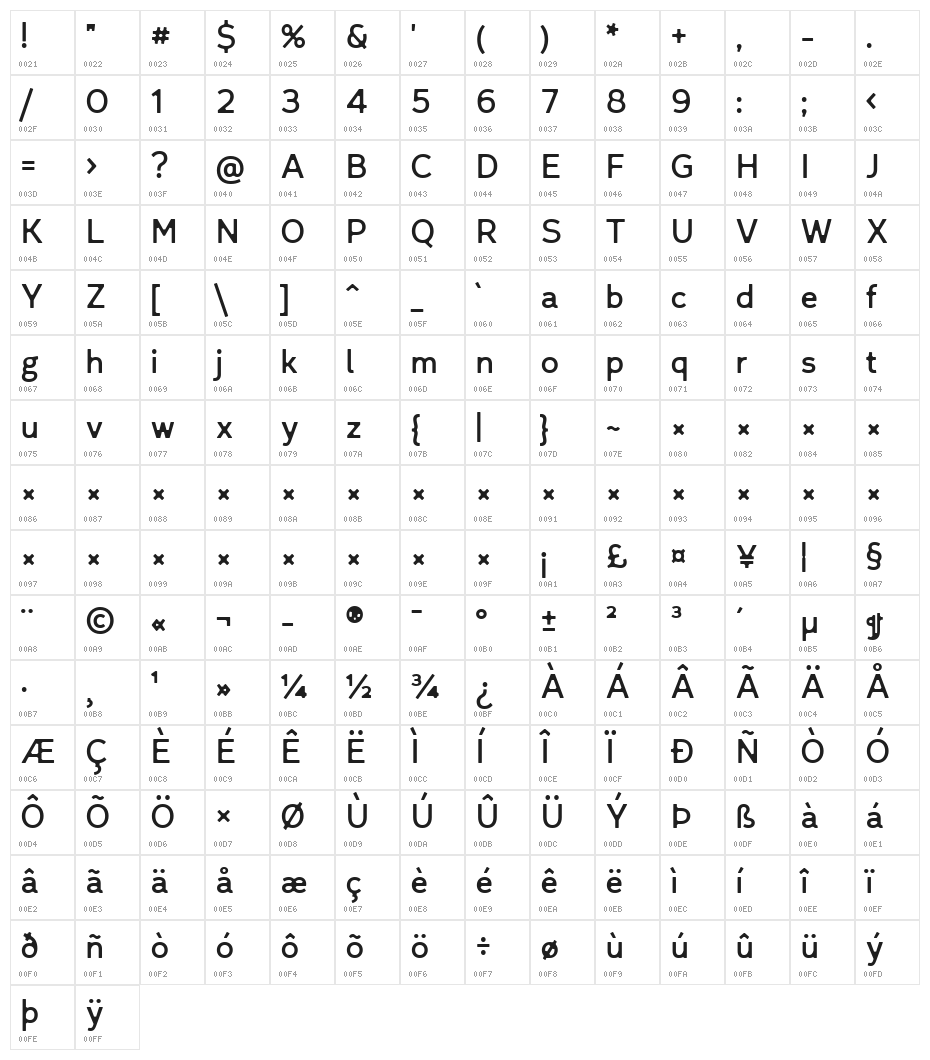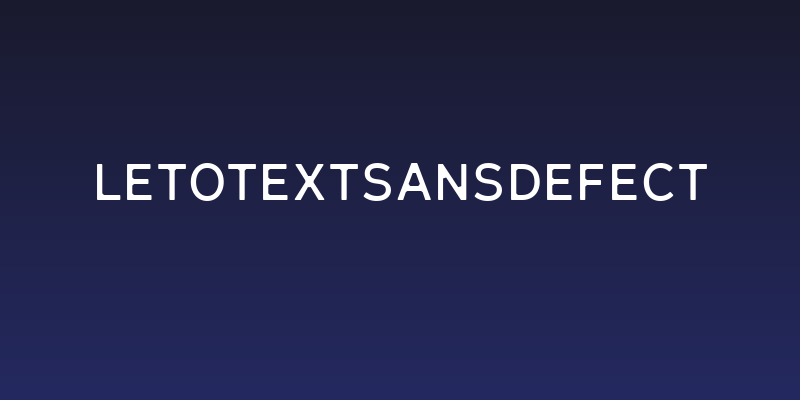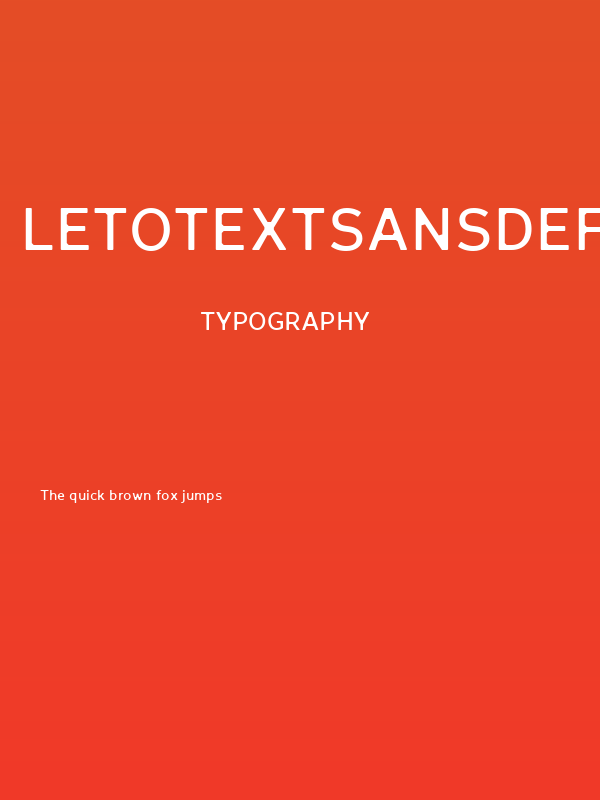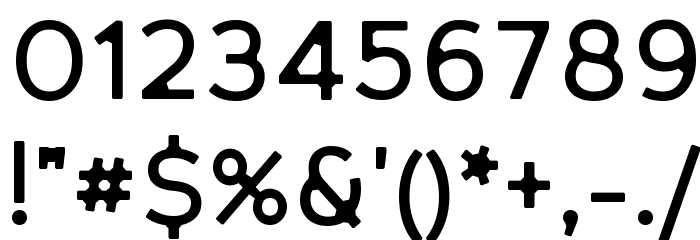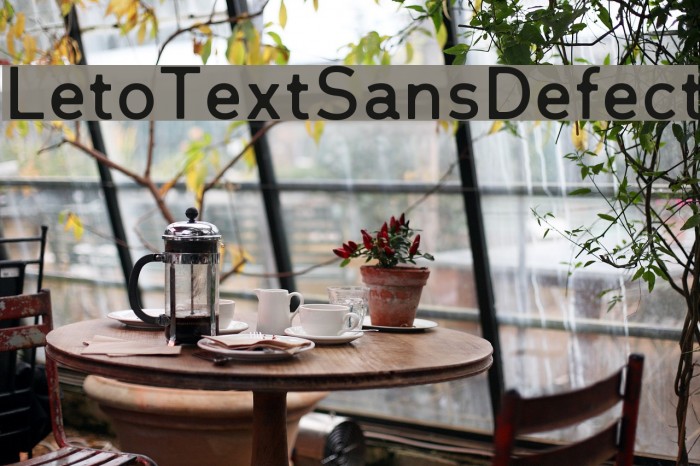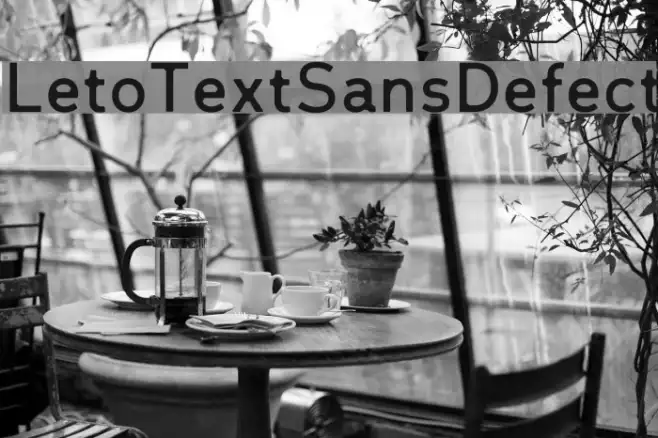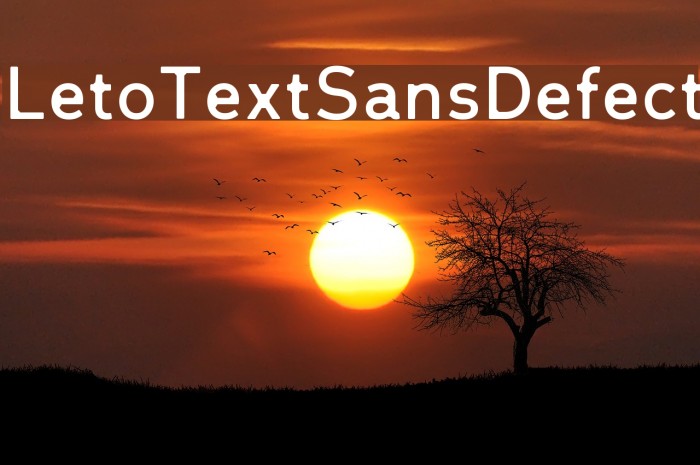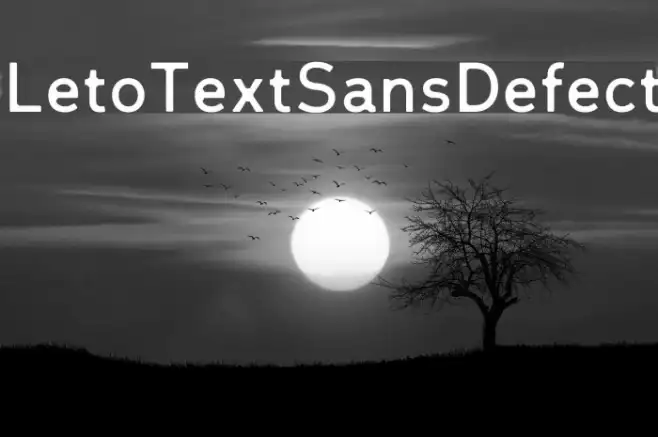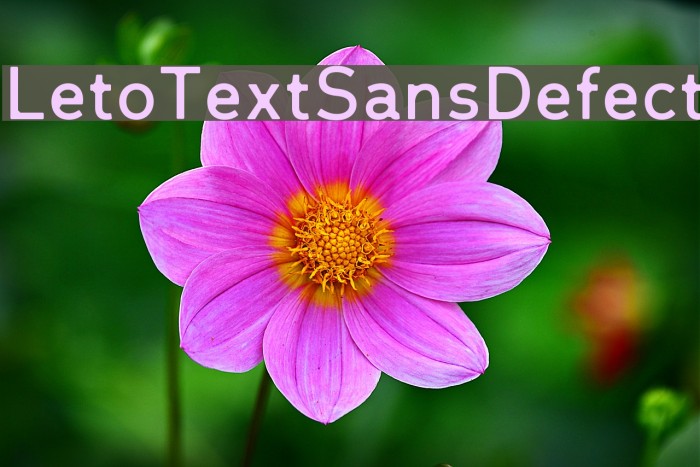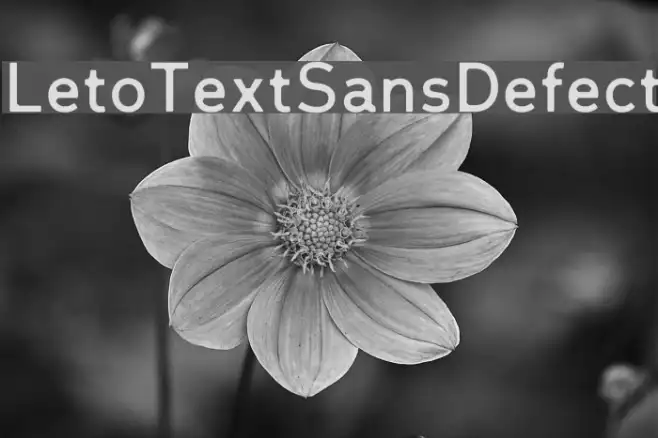
LetoTextSansDefect Font
LetoTextSansDefect Description
This font presents a clean and modern sans-serif style, characterized by its uniform stroke width and geometric shapes. The uppercase letters are bold and assertive, while the lowercase letters maintain a consistent and harmonious appearance. The numerals are clear and easy to read, making them suitable for various applications. Special characters are well-defined, adding to the font's versatility. The overall design is straightforward, with a focus on readability and simplicity, making it ideal for both digital and print media.